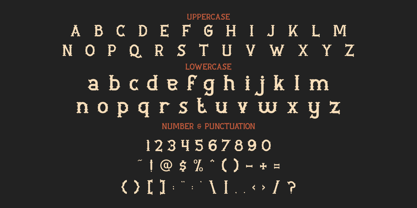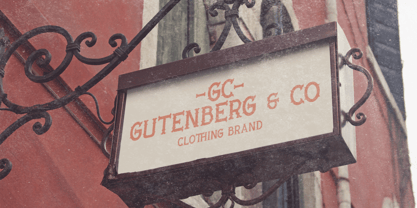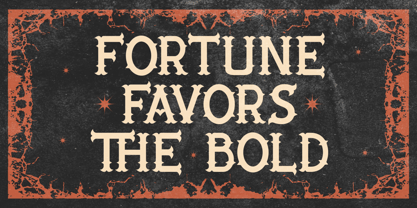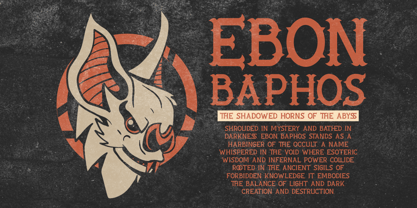
Classic Engrave
by Shanaf
The Classic Engrave Font Family was designed by Yesie Erma Yunita and published by Shanaf. Classic Engrave contains 1 styles.
Introducing Classic Engrave - Classic Font, a vintage-inspired typeface with an elegant yet bold presence. This font features intricate, engraved-style serifs reminiscent of old Western signage and traditional book covers. Each letter has a handcrafted look, with ornamental curves and sharp edges that exude sophistication and a historical feel. The textured black background, along with distressed red decorative borders and celestial elements, enhances the font's antique, mystical, and gothic aura. This font is perfect for projects that require a touch of timeless elegance and bold storytelling.
Classic Engrave is a versatile typeface ideal for logos, branding, packaging, invitations, posters, book covers, and more. Its refined yet rugged aesthetic makes it a great choice for vintage-style projects, luxury branding, gothic themes, or Western-inspired designs. Whether you're working on a fantasy novel title, a whiskey label, or a high-end boutique branding, this font will add a unique, classical charm to your work. Elevate your designs with Classic Engrave, where tradition meets bold creativity.